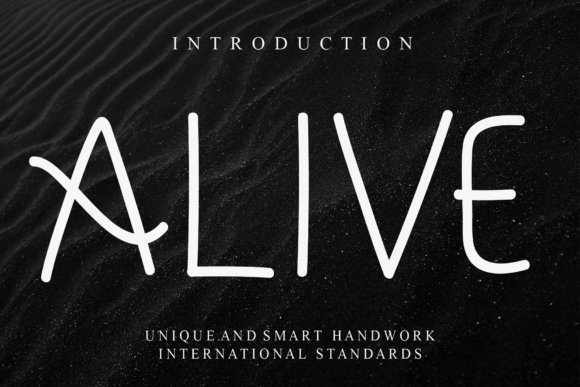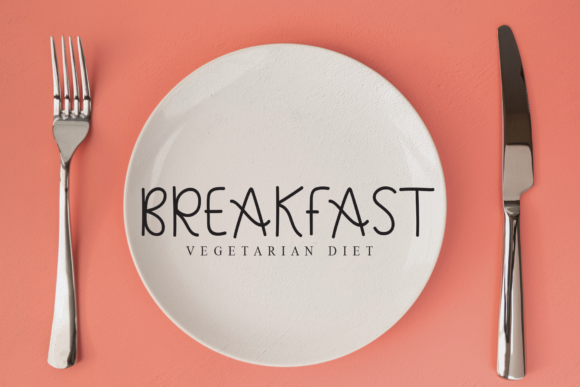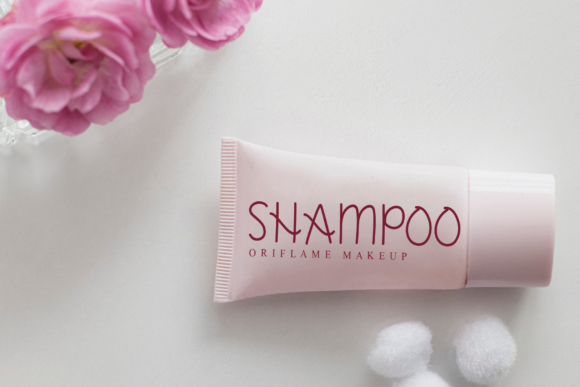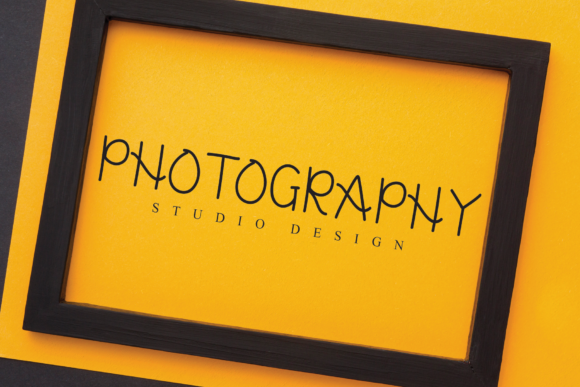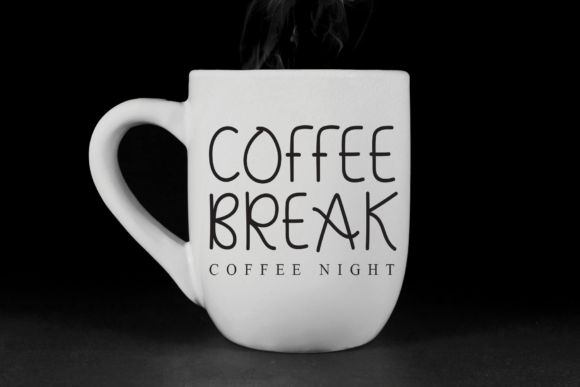
Alive Font
About Alive Font
Alive is a unique handwritten font that brings a sense of creativity and liveliness to your designs. With its distinct and expressive style, this font allows you to explore and unleash your creativity, resulting in beautiful and captivating designs.
The uniqueness of Alive lies in its handcrafted appearance, mimicking the imperfections and organic flow of hand-drawn lettering. Each character carries its own personality and flair, adding a touch of authenticity and artistic charm to your designs. This makes Alive perfect for projects that require a personal and creative touch.
When using Alive, you have the freedom to experiment with various design elements and layouts. Its versatile nature allows it to adapt to different styles and contexts, whether you’re designing logos, social media graphics, invitations, posters, or any other visual material. Let your imagination run wild and explore the creative possibilities that Alive offers.
The expressive and dynamic nature of Alive brings energy and life to your designs. The varying stroke widths and subtle embellishments create a sense of movement and vitality, catching the viewer’s attention and making your designs visually engaging. It adds a sense of playfulness and excitement, making your designs stand out from the crowd.
Alive is designed to be user-friendly and accessible. It provides easy access to all standard characters, punctuation marks, and numbers, allowing for seamless integration into your design workflow. This ensures a smooth and efficient design process, where you can focus on expressing your creativity and bringing your ideas to life.
Whether you’re working on personal projects, client work, or creative endeavors, Alive is a font that encourages you to think outside the box and create designs that truly reflect your unique style. Its distinct and artistic qualities make it a valuable asset in your font library, providing endless opportunities for creative exploration.
In summary, Alive is a unique handwritten font that allows you to unleash your creativity and create beautiful designs. Its handcrafted appearance, expressive nature, and versatility make it an excellent choice for a wide range of design projects. Embrace the distinctiveness of Alive and let it breathe life into your creations.